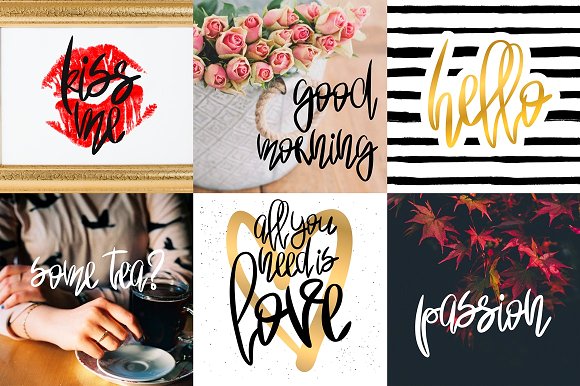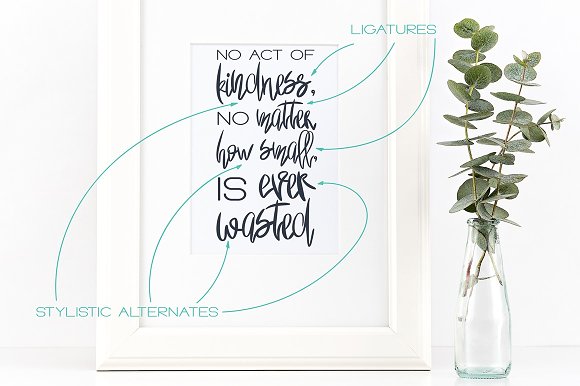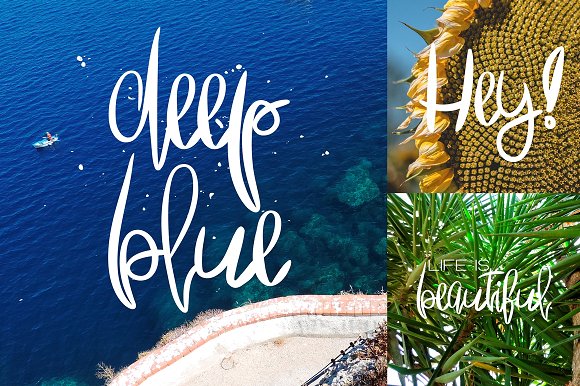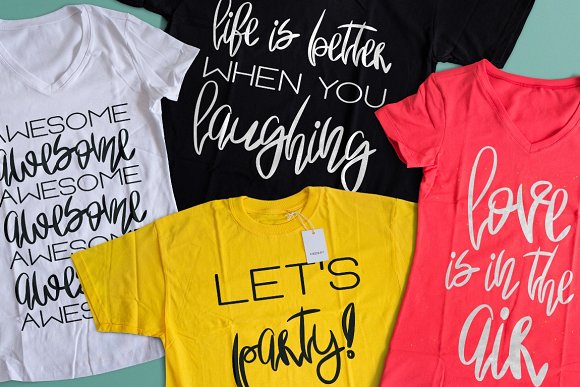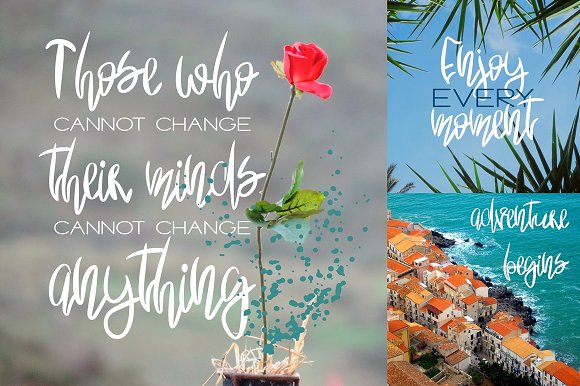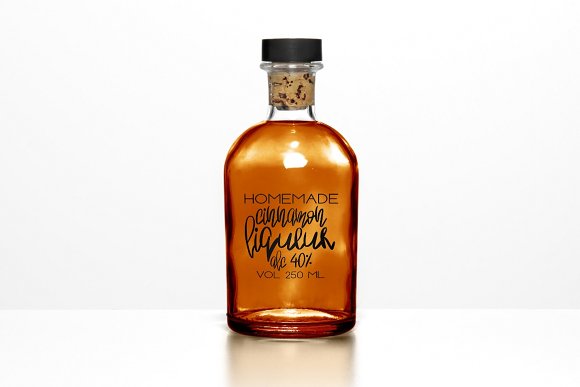
Introduction to Palma Nana Font
Imagine you’re sitting at your desk, surrounded by scattered papers, sketches, and half-empty coffee cups. Your creative project is due soon, and you’re still searching for the perfect font to tie everything together. This is where the Palma Nana Font Duo comes in – a match made in heaven for designers like you.
With its unique blend of Palma Nana Script and Palma Nana Sans, this font duo offers endless possibilities for your next creative project. Whether you’re designing a logo, creating a brochure, or building a website, these high-quality fonts will elevate your work to new heights. And the best part? Both fonts are available for free download, making them an invaluable design resource for any project.
As a designer, you know how difficult it can be to find the perfect font to complement your work. But with the Palma Nana Font Duo, you’ll have two stunning typefaces at your fingertips, ready to take your creative project to the next level.
Key Features of Palma Nana Font
- High-quality design resource ideal for creative projects, including logos, branding, and graphics.
- Comes with a transparent background, making it easy to use in various design scenarios.
- The font includes a wide range of characters, including uppercase and lowercase letters, numbers, and special symbols.
- Palma Nana Font is a high-resolution design, suitable for use in print and digital applications at resolutions up to 300 DPI.
- Its unique and elegant design makes it an excellent choice for designers looking to add a touch of sophistication to their creative projects.
Honest Review: Palma Nana Font
As a designer, I’m always on the lookout for high-quality design resources that can elevate my creative projects. Recently, I stumbled upon the Palma Nana Font, and I’m excited to share my honest review.
- ✨ High-quality typography: The Palma Nana Font boasts beautiful, elegant lettering that’s perfect for a variety of design projects.
- ✨ Transparent background: This allows for seamless integration with any design element, giving you complete control over your creative project.
- ⚠️ Limited font styles: The Palma Nana Font comes in a limited number of styles, which may not be ideal for projects requiring a wide range of typography options.
- ⚠️ Not suitable for all platforms: I experienced some issues with the font’s compatibility on certain platforms, so be sure to test it thoroughly before use.
Overall, I’m impressed with the Palma Nana Font’s potential to enhance my creative projects. While it may have some limitations, its high-quality typography and transparent background make it a valuable addition to any designer’s toolkit.
The Palma Nana Font is suitable for a variety of creative projects, including branding, marketing materials, and digital graphics. Its high-quality design and transparent background make it an excellent choice for designers and non-designers alike.
Alternatives to Palma Nana Font
Avenir Font
Avenir is a modern sans-serif font that is perfect for high-quality design projects. It has a clean and elegant look, making it suitable for creative projects that require a professional touch. Avenir is available for free download and comes with a transparent background, making it easy to use in various design scenarios.
Comparison to Palma Nana Font: Avenir has a more geometric and minimalist design compared to Palma Nana Font’s playful and cursive feel. Avenir is ideal for projects that require a modern and sophisticated look, while Palma Nana Font is better suited for projects that need a more whimsical and artistic touch.